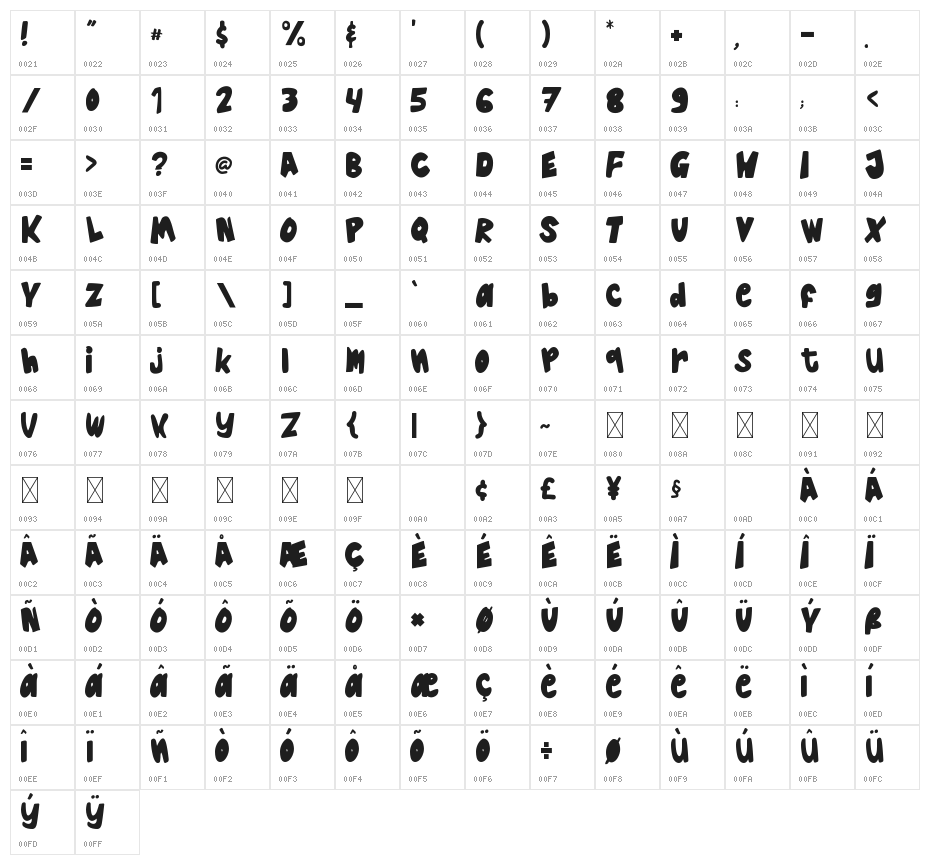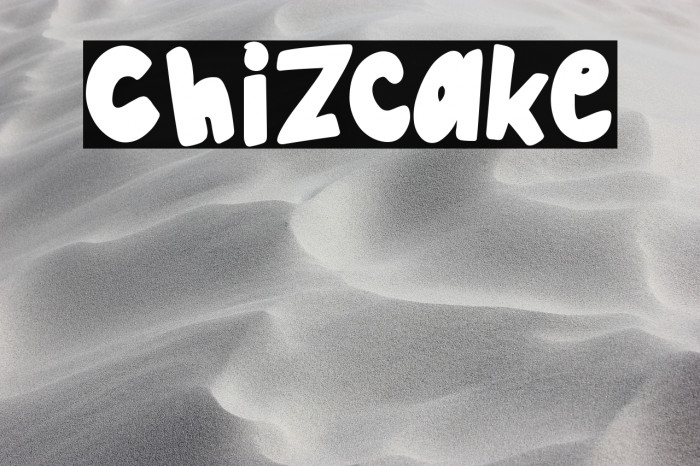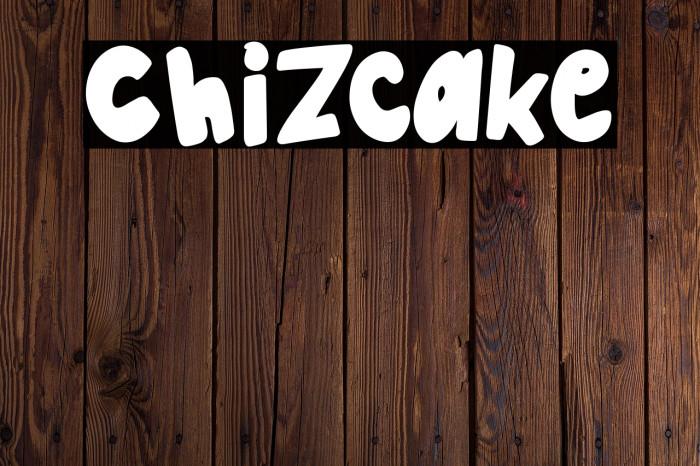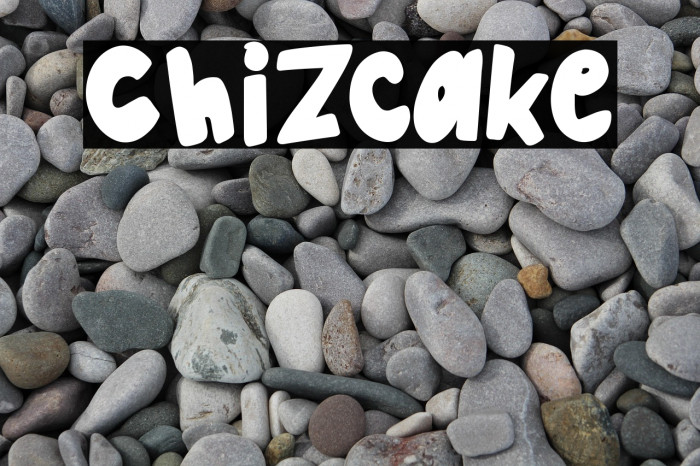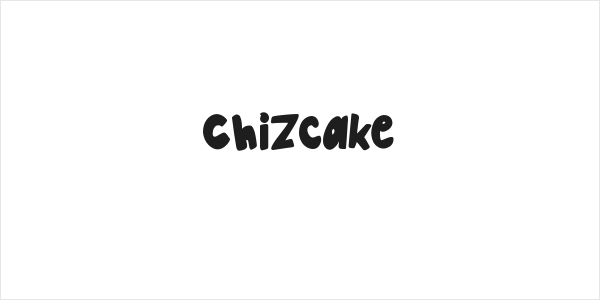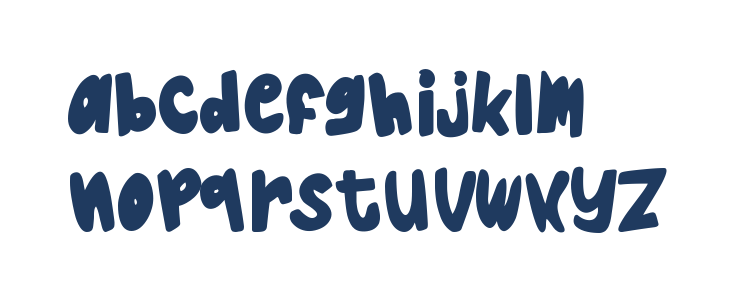
Chizcake Font
Chizcake Description
This playful and bold font features thick, rounded characters with a whimsical and informal style. The letters are slightly irregular, giving them a hand-drawn appearance that adds a touch of fun and creativity. The uppercase and lowercase letters maintain a consistent weight, while the numbers and special characters are designed to match the overall playful aesthetic. The font's boldness makes it highly visible and attention-grabbing, suitable for projects that require a lively and energetic feel.
| Overall Style | Playful, Whimsical |
| Proposed Projects | Ideal for children's books, comic strips, playful branding, party invitations, and posters. |